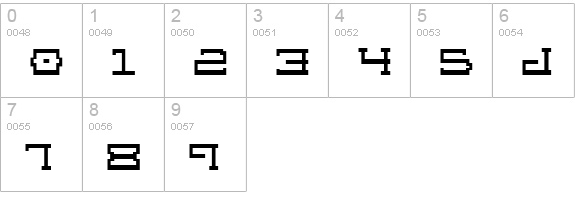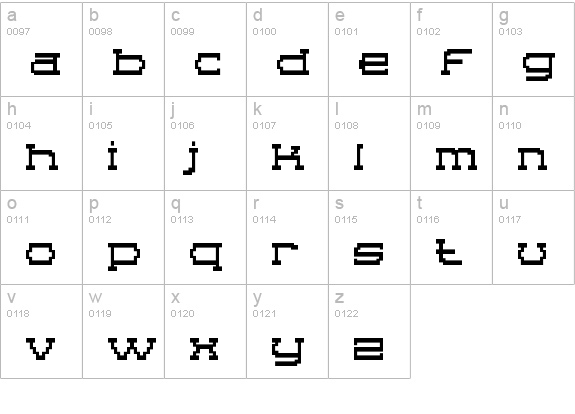
Superago Expanded Font Details
Superago Expanded is a distinctive, extended-width variant in the Superago typeface family \xE2\x80\x94 well suited to design and typography projects.
Superago Expanded font is a modern and stylish typeface that exudes sophistication and elegance. With its sleek lines and contemporary design, this font is perfect for a wide range of design projects, from branding to editorial layouts. The expanded version of Superago adds an extra touch of uniqueness and flair, making it stand out from the crowd. What makes Superago Expanded font even more appealing is that it is available for free download at FontsMarket.com. This means that you can easily access this high-quality font without any cost, making it a valuable addition to your font library. Whether you are working on a professional project or simply want to enhance your personal designs, Superago Expanded font is a versatile and visually striking choice that is sure to make a lasting impression.